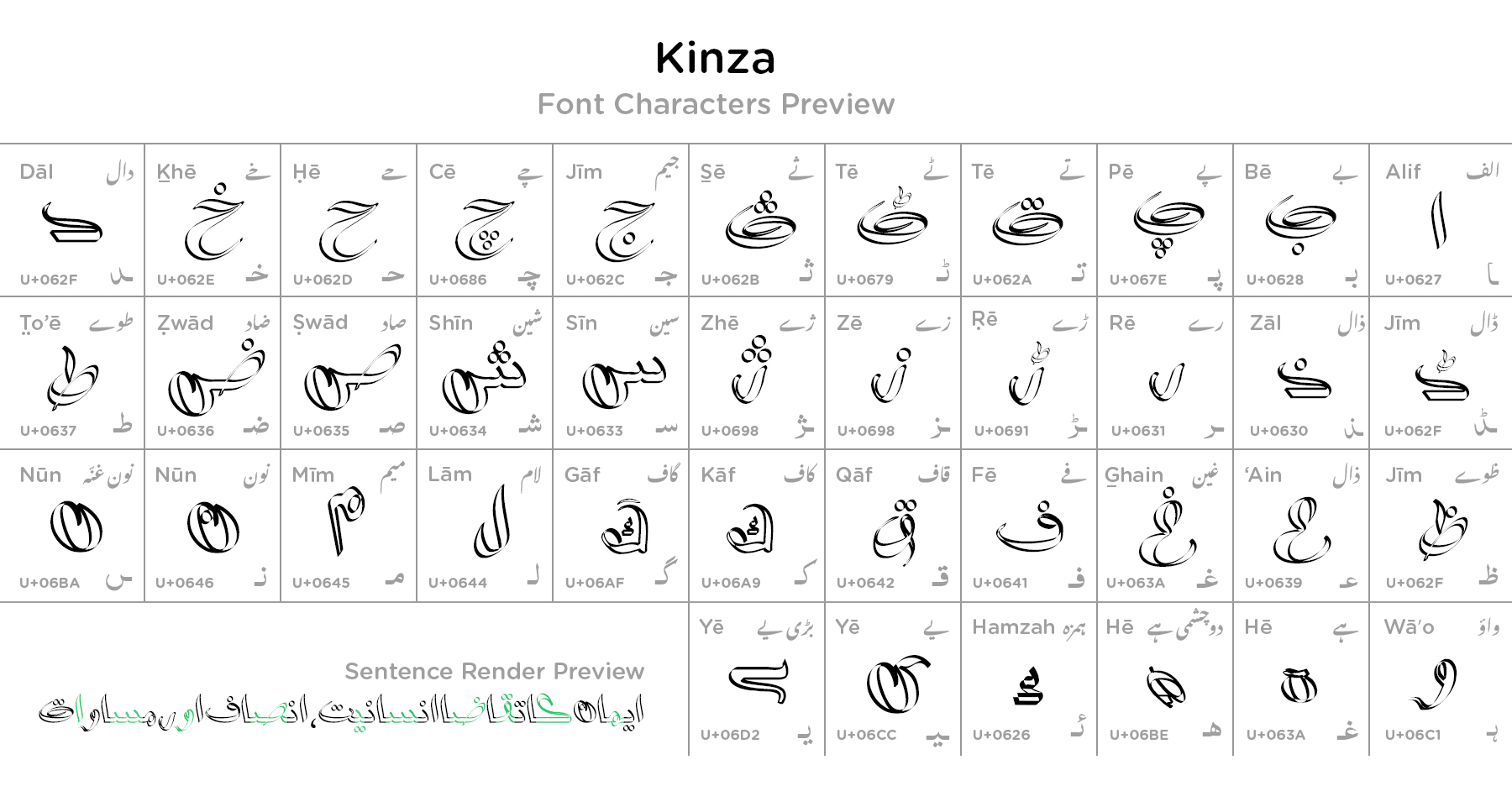
Kinza, a modern stencil font by Axis Softmedia Pvt. Ltd., offers a unique blend of modern design and traditional influence. Designed by Syed Manzar Hasan Zaidi, it was released on February 29, 2016. With 432 characters and 497 glyphs, it supports Urdu, Arabic, Latin, Persian, and more languages. The font style is characterized by decorative, free-flowing letterforms created with two thin lines joined together, resulting in hollow, rounded-corner shapes. Inspired by Naskh's script, Kinza combines modern influences to deliver a visually striking aesthetic. Its thin thickness and hollow letterforms make it best suited for short text applications, as extended reading might pose readability challenges. The font's light and flowing essence and stencil design make it ideal for branding, advertising, and logo projects where attention-grabbing typography is desired. Kinza's compatibility with Unicode blocks like Basic Latin, Arabic, and Geometric Shapes enhances its versatility across various design applications.